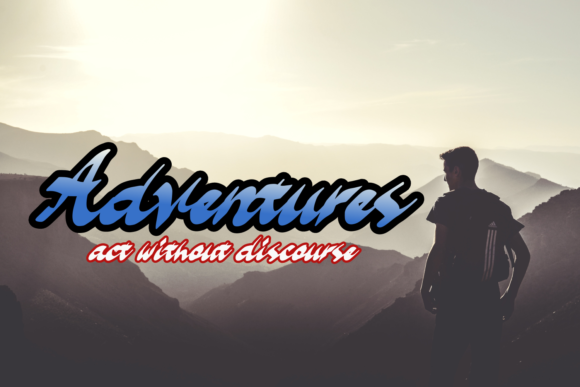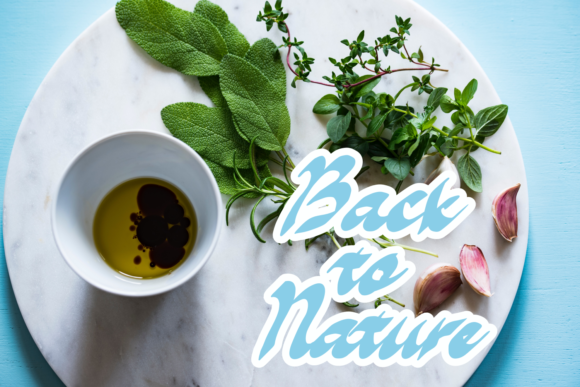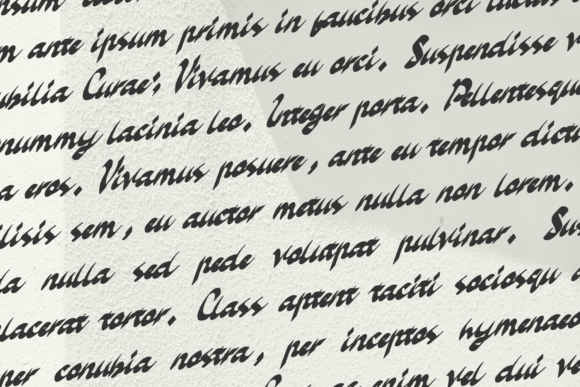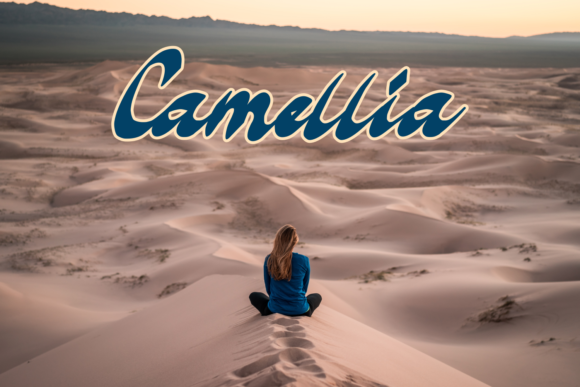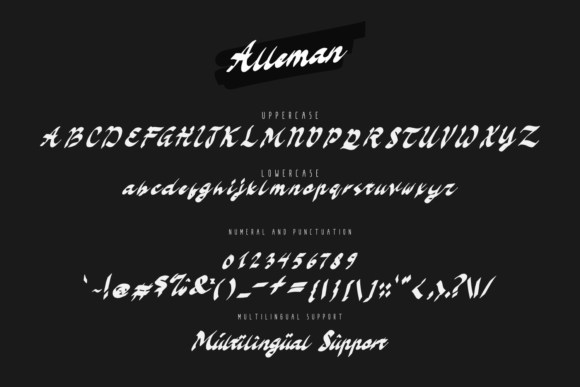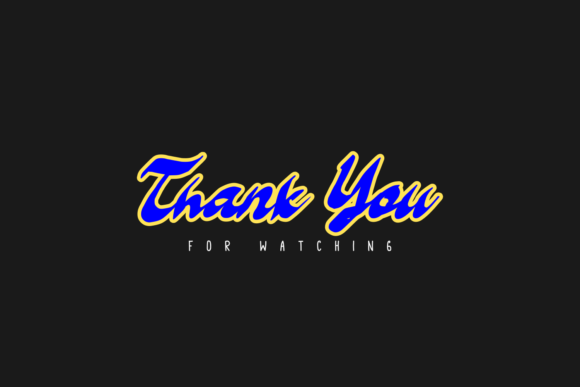
Discover the Elegance of Alleman Font: Elevate Your Designs with this Chic Script Font
In the world of typography, a font can make or break a design. It’s the perfect blend of style, elegance, and readability that can transform a simple project into something extraordinary. If you’re a designer, crafter, or simply someone who appreciates beautiful typography, you’re in luck. Introducing Alleman Font, a stunning script font that is sure to become a prized addition to your font library.
What is Alleman Font?
Alleman is a beautiful, chic, and distinct script font that boasts a lovely style. Its elegant and refined appearance makes it perfect for a wide range of projects, from wedding invitations and branding materials to digital content and craft projects. No matter the topic or theme, Alleman Font has the potential to elevate any creation, adding a touch of sophistication and glamour.
Key Features of Alleman Font
- Unique and Distinctive Style: Alleman Font features a unique and distinctive style that sets it apart from other script fonts. Its elegant and refined appearance makes it perfect for designs that require a touch of sophistication.
- High Readability: Despite its ornate and decorative nature, Alleman Font remains highly readable, making it suitable for both digital and print projects.
- Versatility: Alleman Font can be used for a wide range of projects, including wedding invitations, branding materials, social media graphics, and more.
- Elegant and Refined: Alleman Font exudes elegance and refinement, making it perfect for designs that require a touch of luxury and sophistication.
Why Choose Alleman Font?
With so many fonts available, why choose Alleman Font? Here are just a few reasons why this font stands out from the rest:
- Stand Out from the Crowd: Alleman Font’s unique and distinctive style ensures that your designs will stand out from the crowd, grabbing the attention of your audience and leaving a lasting impression.
How to Use Alleman Font
Alleman Font is incredibly versatile and can be used for a wide range of projects. Here are just a few ideas to get you started:
- Wedding Invitations: Add a touch of elegance and sophistication to your wedding invitations with Alleman Font.
- Branding Materials: Use Alleman Font to create stunning branding materials, including logos, business cards, and letterheads.
- Digital Content: Elevate your digital content, including social media graphics, blog posts, and email newsletters, with Alleman Font.
- Craft Projects: Add a touch of personality and style to your craft projects, including handmade cards, scrapbooking, and DIY projects.
In conclusion, Alleman Font is a beautiful, chic, and distinct script font that is sure to become a prized addition to your font library. Its elegant and refined appearance, high readability, and versatility make it perfect for a wide range of projects. Whether you’re a designer, crafter, or simply someone who appreciates beautiful typography, Alleman Font is a must-have font that will elevate your designs and add a touch of sophistication and glamour.